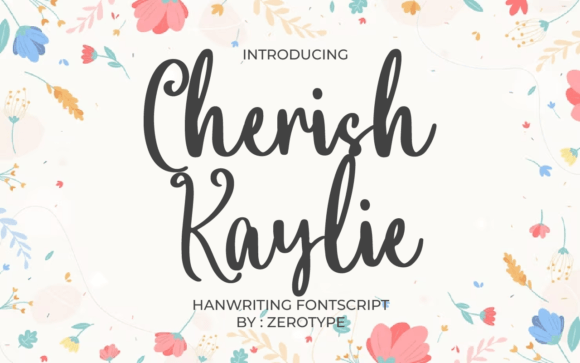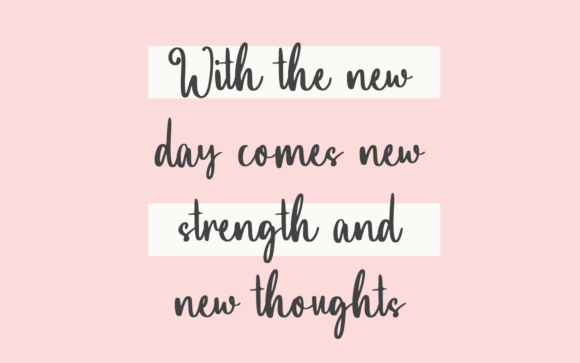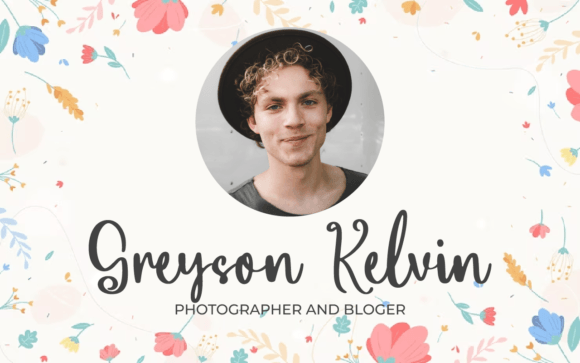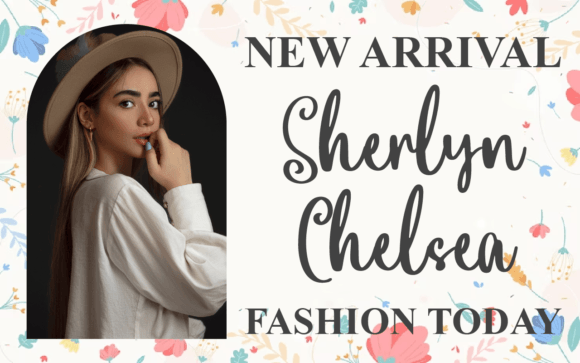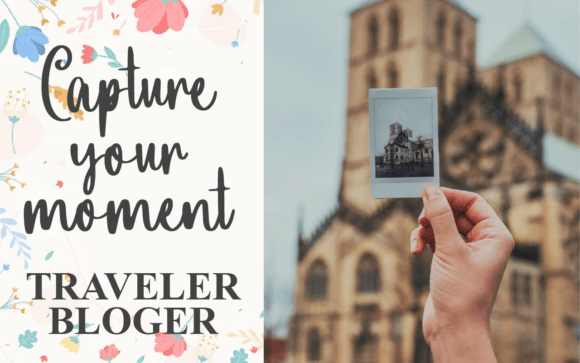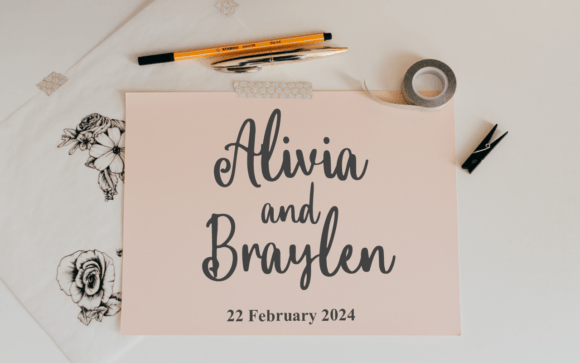
Discover the Perfect Blend of Cute and Elegant: Cherish Kaylie Font
Have you ever been working on a project and suddenly, a spark of creativity strikes? You’re brainstorming ideas, flipping through design inspiration, and before you know it, you’ve stumbled upon the perfect font to bring your vision to life. For me, that moment happened when I found the Cherish Kaylie Font. Its delicate curves and flowing lines instantly captured my attention, and I knew I had to learn more.
Cherish Kaylie Font is a beautiful, handwritten font that combines the charm of cursive script with the sophistication of elegant typography. Whether you’re designing wedding stationery, invitations, or any other project where you want to convey a sense of refinement and beauty, this font is the perfect choice. Its versatility and charm make it a valuable addition to any designer’s toolkit.
- Font Family: Cherish Kaylie
- Font Type: Script
- Unique Characteristics: Elegant, flowing script with swashes and flourishes, ideal for wedding invitations, greeting cards, and other special occasions
Cherish Kaylie Font Review
Overall, I’d say the Cherish Kaylie Font is a lovely addition to any design project. It works well in a variety of contexts, from headings to body text. ✨ Its elegant script style and flowing connections make it perfect for titles, quotes, and other decorative elements. ✨
Some of its notable features include:
- Elegant script style with flowing connections
- High-quality rendering for both print and digital use
- Well-suited for headings, titles, and decorative text
- Supports various languages and character sets
However, there are some limitations to keep in mind. ⚠️ The font may not be the best choice for body text, as it can be quite difficult to read at smaller sizes. ⚠️ Additionally, the font’s complexity may lead to compatibility issues with certain operating systems or software. ⚠️
Overall, I think the Cherish Kaylie Font is a beautiful and versatile font that can add a touch of elegance to any design project. While it may have some limitations, its strengths make it a great choice for the right use cases.
The Cherish Kaylie font is a beautiful script font that is perfect for:
Baby shower invitations and decorations
Special occasion cards and gifts
Any design project that requires a elegant and feminine touch